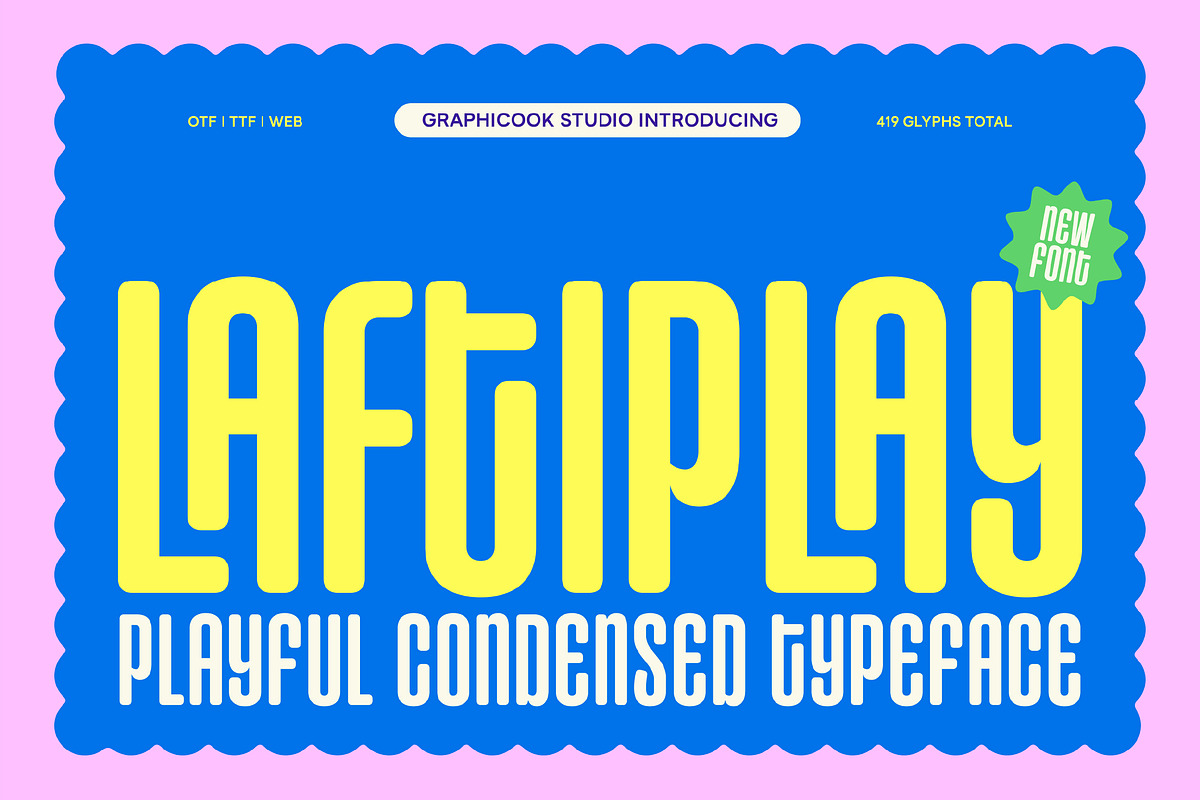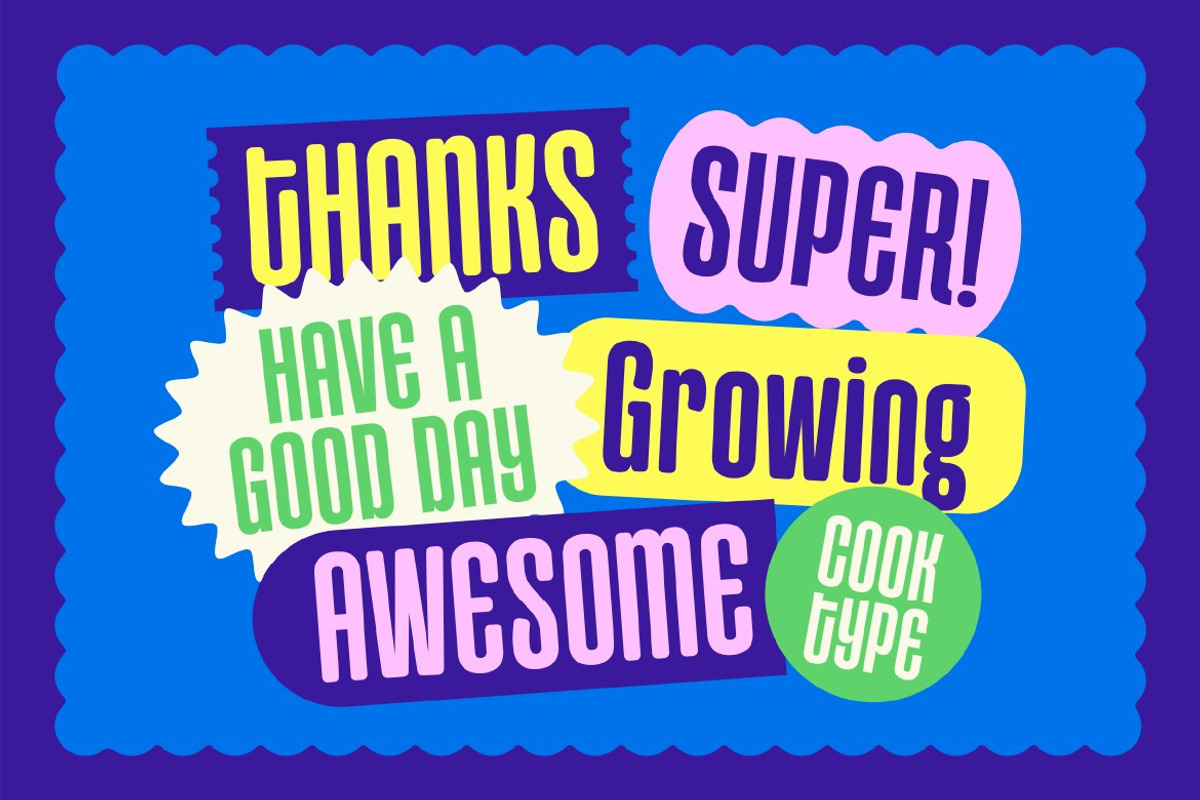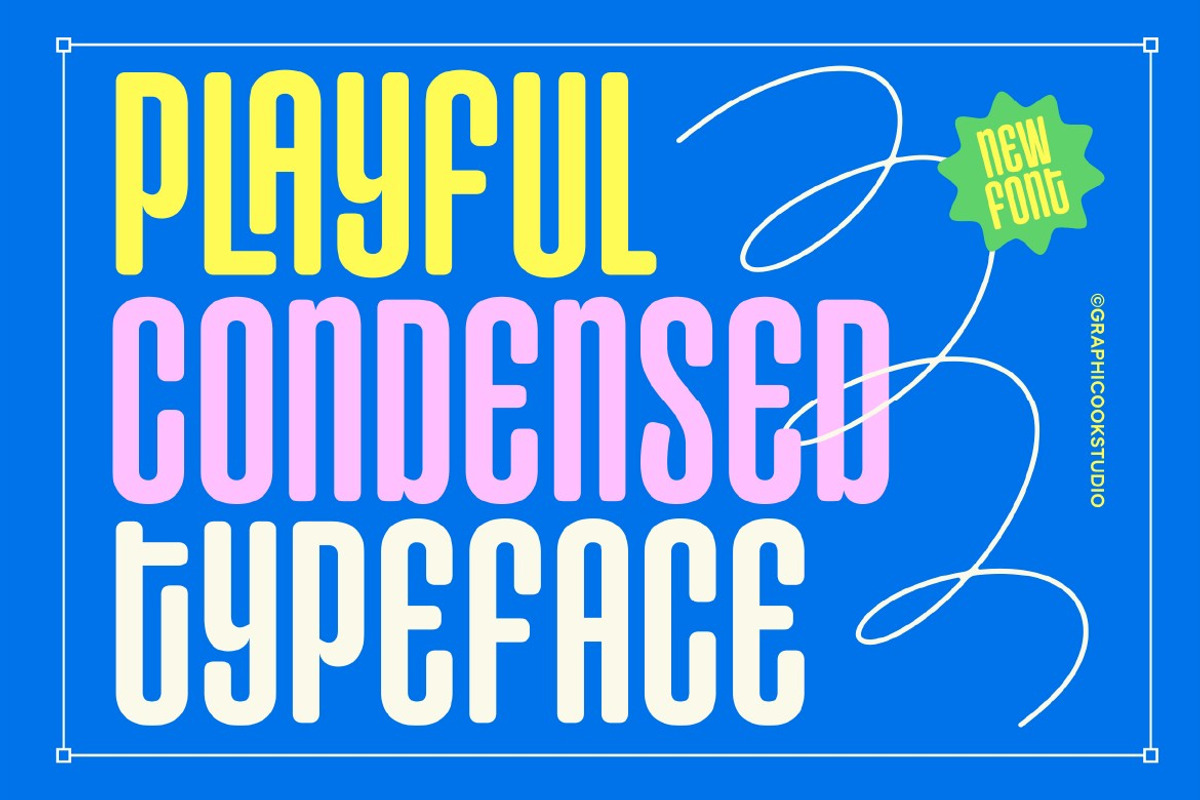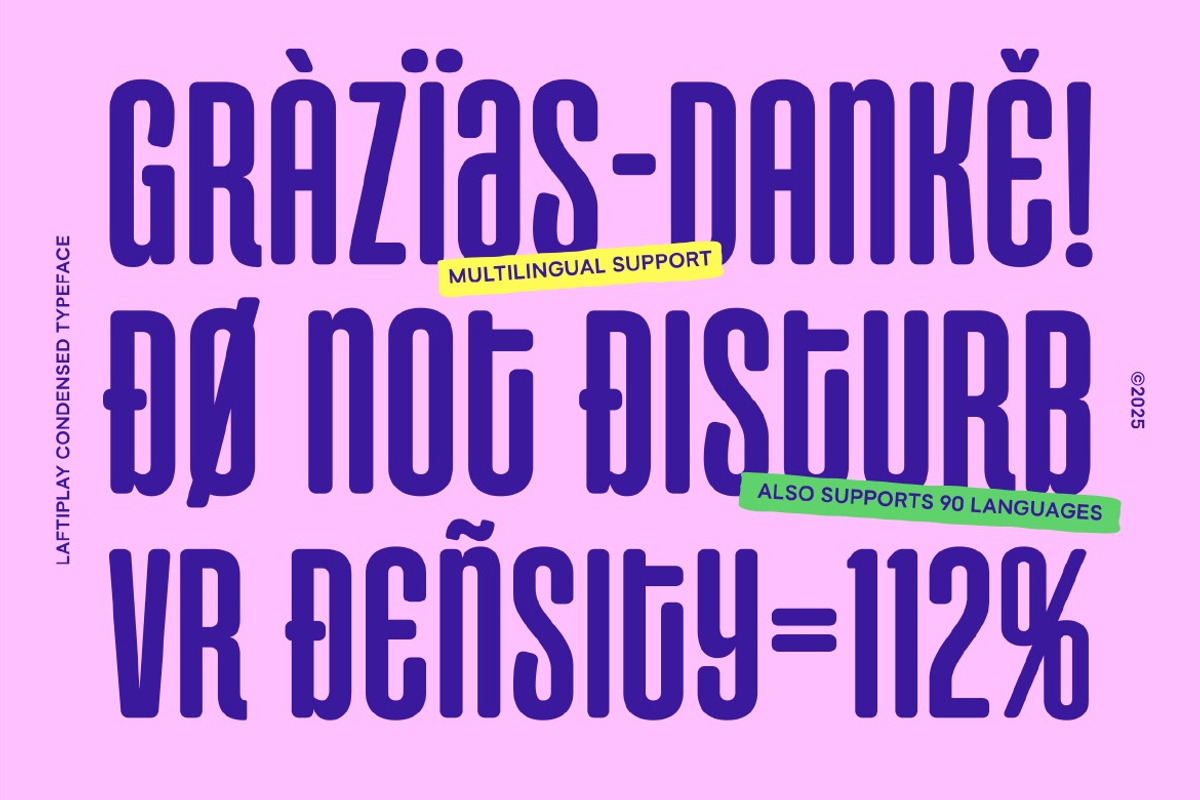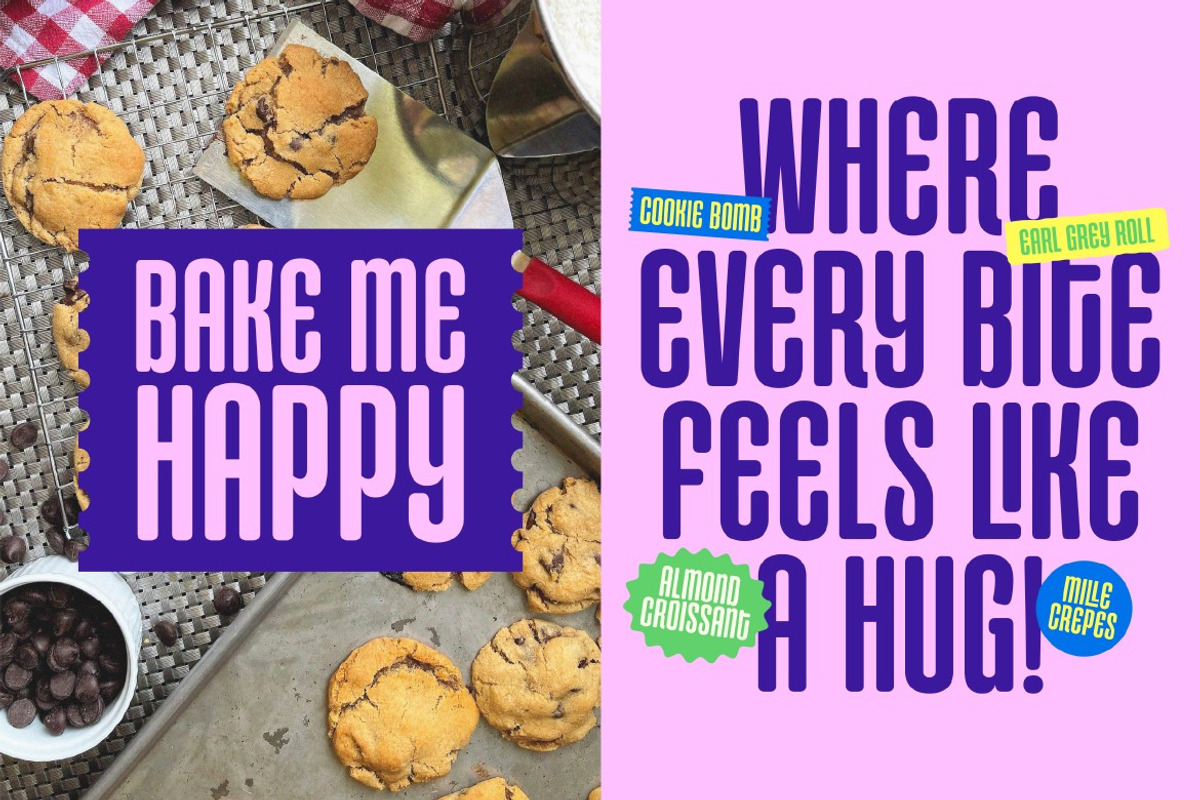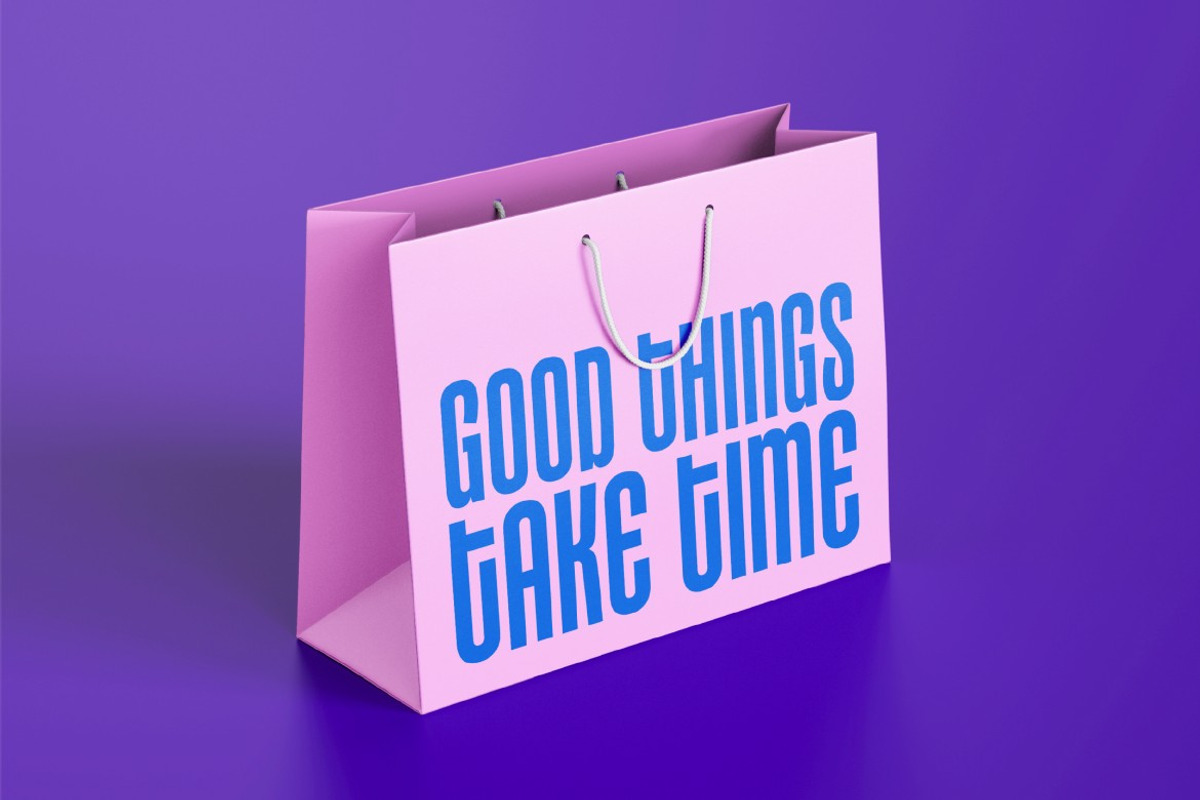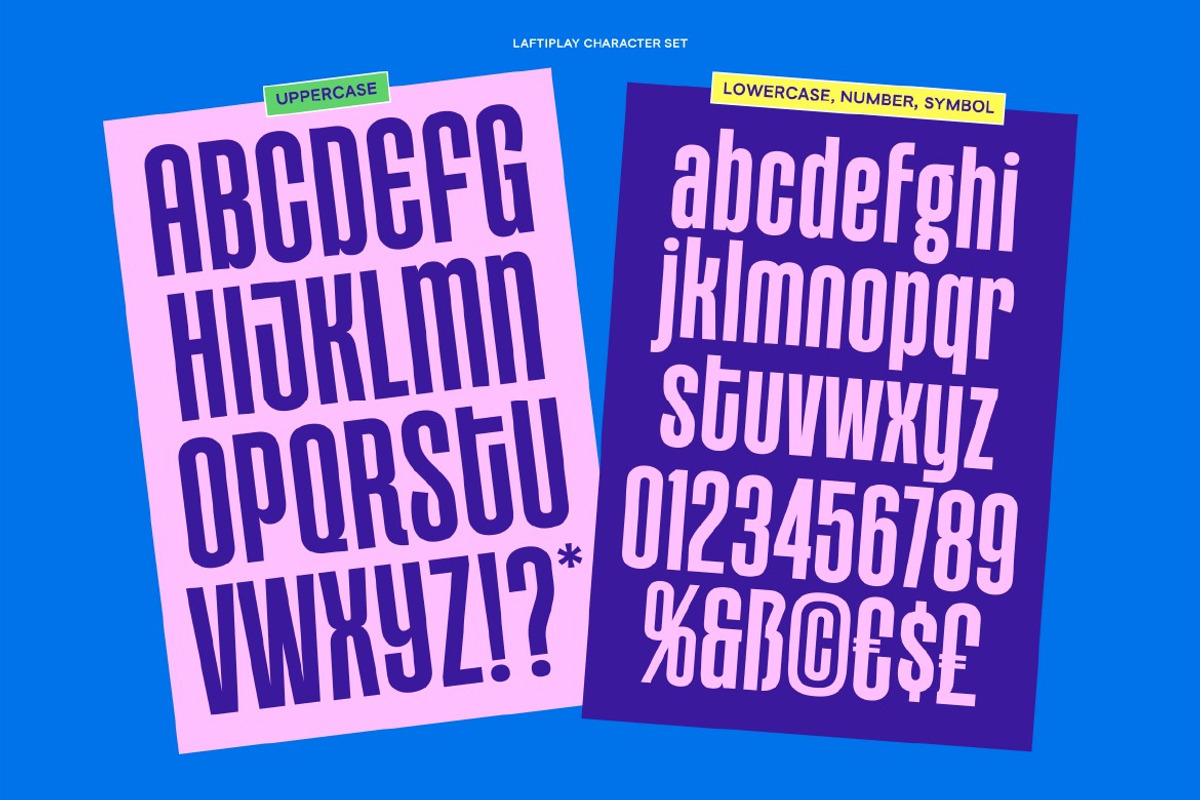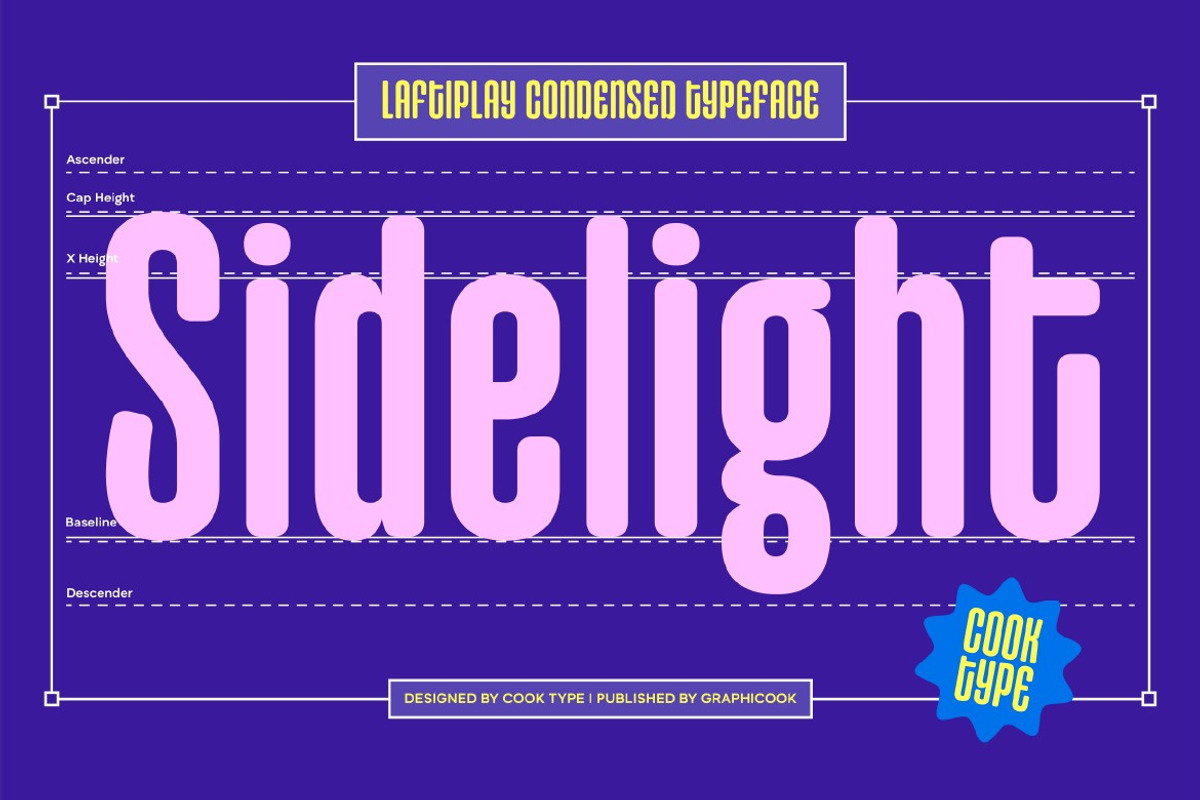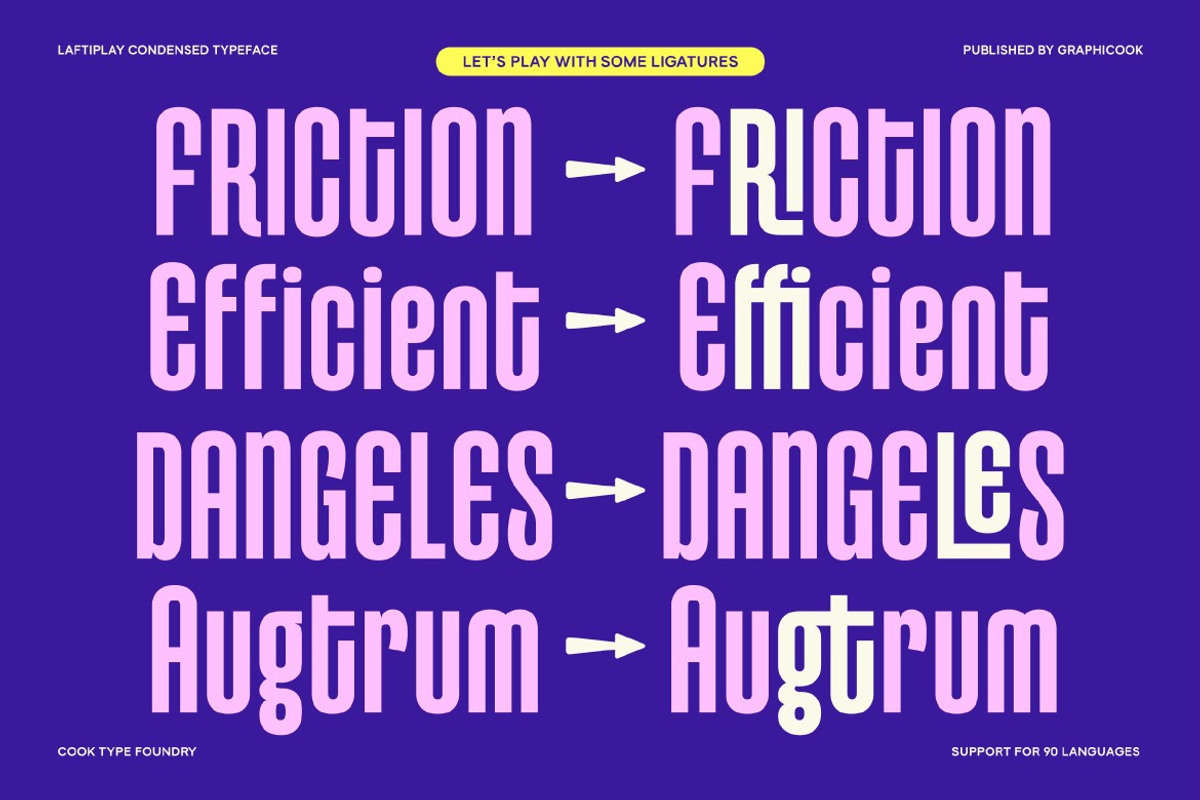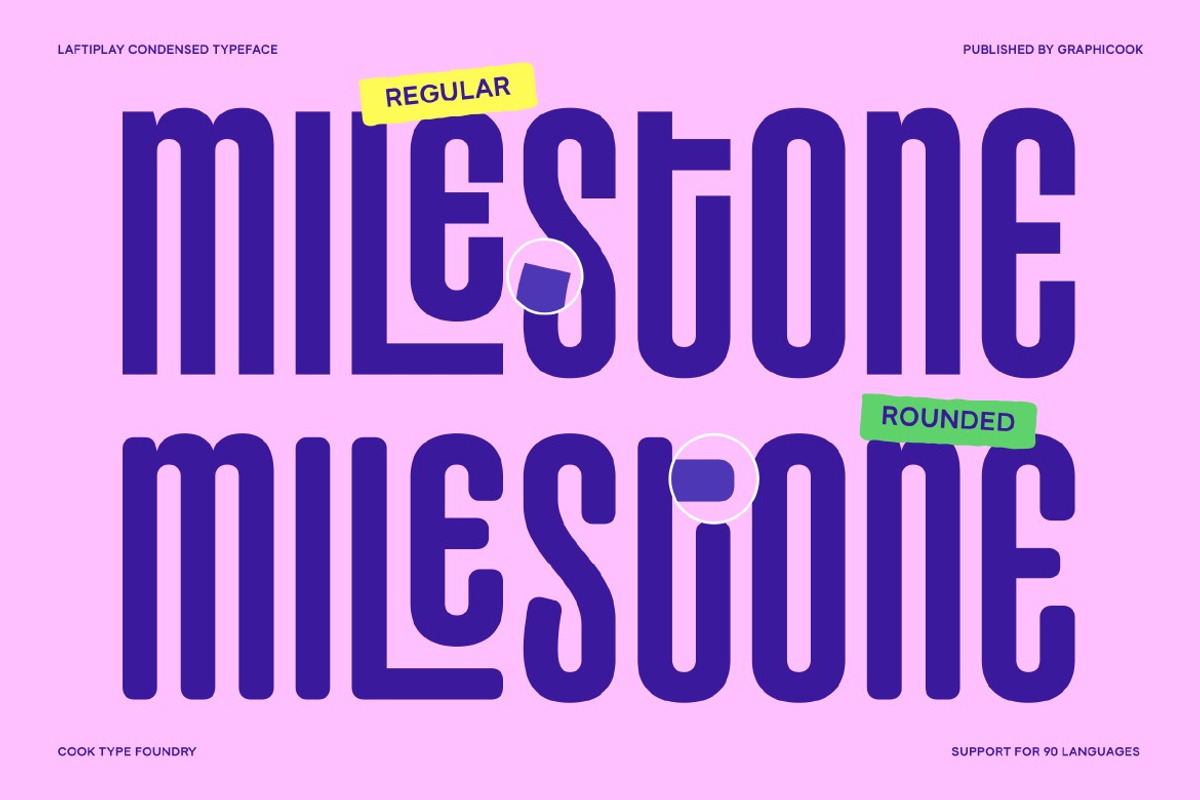
Laftiplay
Laftiplay comes in two styles: Regular and Rounded. The Regular version offers a sleek, modern look with bold confidence, while the Rounded version brings a softer, friendlier tone. Ideal for branding, editorial, or UI design that needs a balance of professionalism and approachability.
It is perfect for headlines, logotypes, magazines, packaging, quotes, movies, games, cover albums, book covers, and flyers, it's a perfect solution for creating eye-catching designs that stand out in any context.